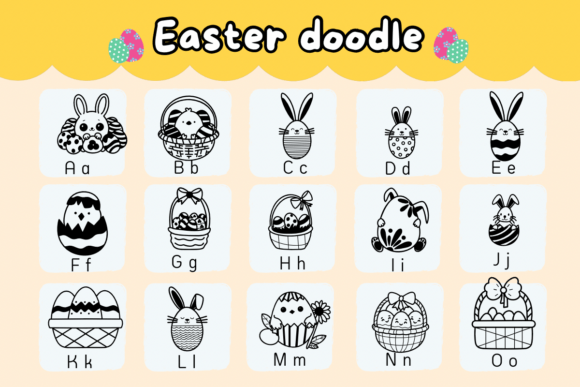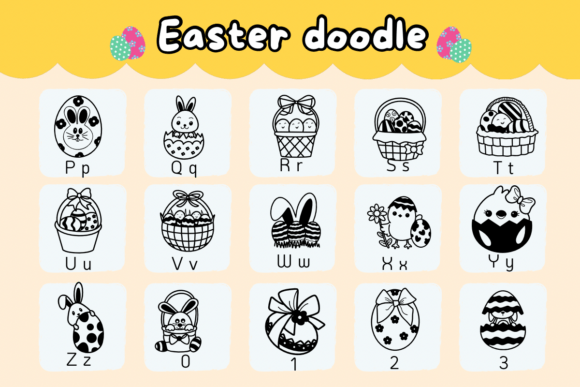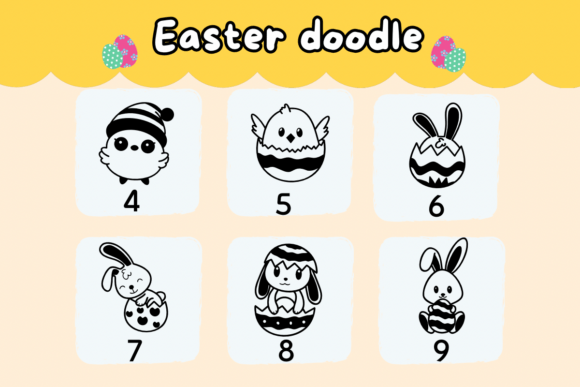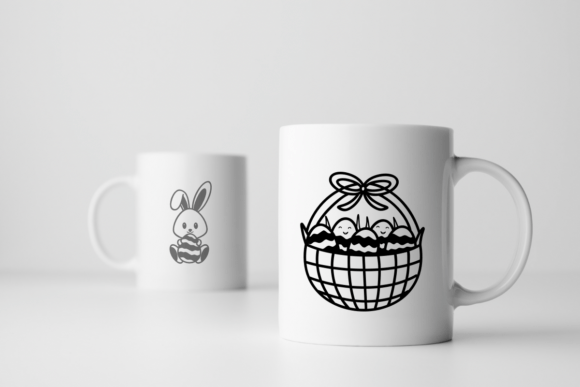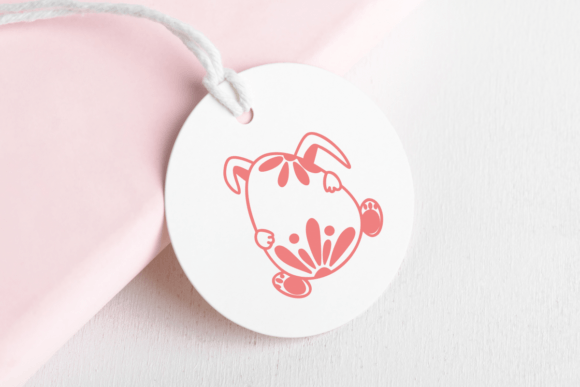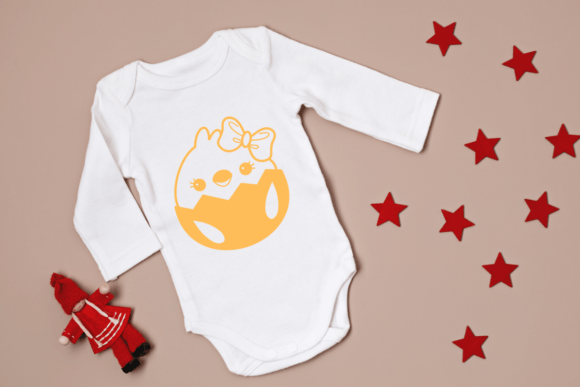
Introduction to Easter Doodle Font
Have you ever been working on a creative project and suddenly, you need that one perfect element to bring it all together? For designers, finding the right design resource can be a challenge, especially when it comes to seasonal themes like Easter. But what if you could add a playful and festive touch to your designs with just a few clicks?
Enter the Easter Doodle Font, a delightful dingbat font filled with Easter-themed doodles, perfect for adding a whimsical touch to your Easter projects. From bunnies to eggs, baskets to more, this font is a treasure trove of design elements waiting to be used. With a transparent background and high-quality graphics, it’s easy to incorporate these doodles into your designs, making it a valuable resource for designers looking to elevate their work.
Key Features of Easter Doodle Font
- Unique and whimsical design for a creative project, perfect for Easter-themed decorations and designs.
- Transparent background, making it easy to layer over any color or design, ideal for digital design and graphic projects.
- Large character set, including uppercase and lowercase letters, numbers, and special characters, providing versatility for a wide range of designs.
Honest Review: Easter Doodle Font
I recently stumbled upon the Easter Doodle Font, a charming design resource perfect for creating whimsical and playful content. As a designer, I appreciate the attention to detail and the sheer creativity that went into crafting this font.
Here are some aspects that work well: ✨ The Easter Doodle Font is incredibly versatile, making it suitable for various creative projects, from Easter-themed marketing campaigns to whimsical social media graphics. The font’s unique style is both fun and elegant, adding a touch of personality to any design. Additionally, it’s available as a free download, which is always a bonus for designers on a budget.
The Easter Doodle Font also features a transparent background, allowing designers to easily integrate it into their designs without any unwanted distractions. However, there are some limitations: ⚠️ The font is only available in a limited number of styles, which may not be suitable for more complex design projects. Additionally, some users may find the font’s style too childish or simplistic for certain applications.
Overall, I’m impressed with the Easter Doodle Font’s high quality and its potential for adding a touch of whimsy to creative projects. While it may have some limitations, it’s definitely a valuable design resource to have in your arsenal.
- Perfect for whimsical and playful content
Tips for Getting the Most Out of Easter Doodle Font
Experiment with different text sizes, colors, and effects to create unique designs. Combine Easter Doodle Font with other design elements, such as illustrations and graphics, to add depth and interest to your projects.
Common Use Cases for Easter Doodle Font
Easter Doodle Font is suitable for a variety of creative projects, including Easter cards, invitations, and party decorations. Its playful and whimsical style makes it an excellent choice for children’s birthday parties, baby showers, and other festive events.
Can I customize the Easter Doodle Font for my specific design needs?
Yes, the Easter Doodle Font is fully editable and customizable. You can use font editing software or design applications to modify the font’s size, color, and style to suit your specific design requirements. The font’s transparent background also allows for easy layering and blending with other design elements.